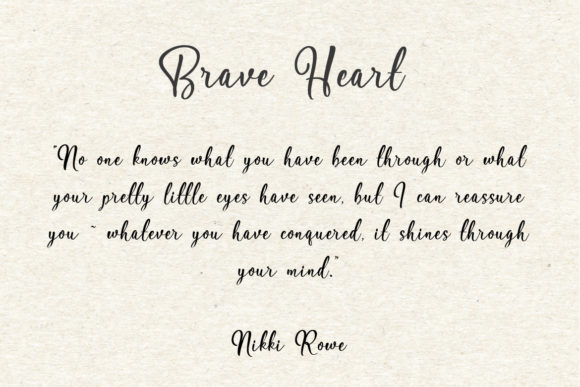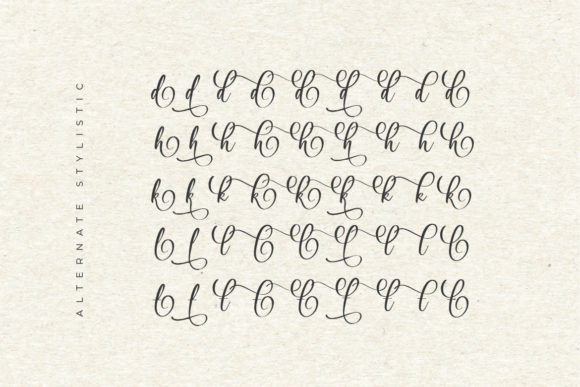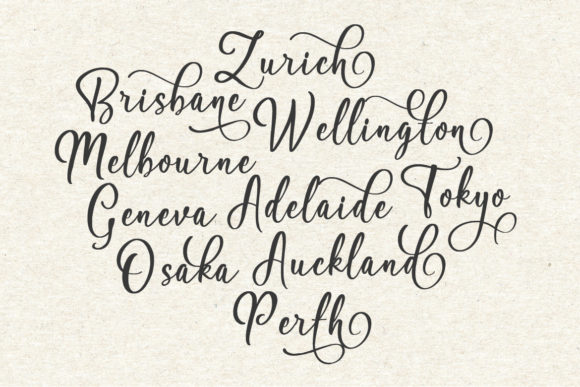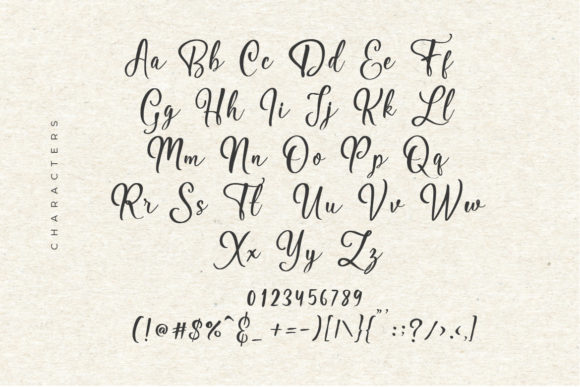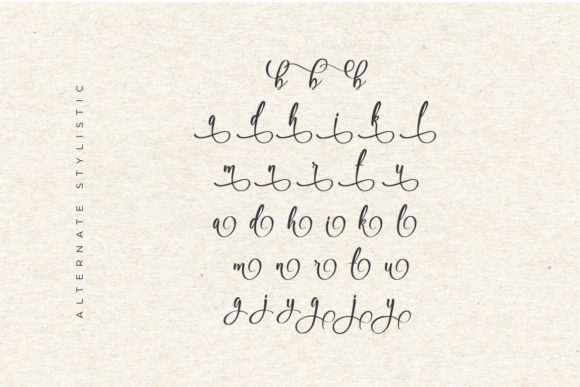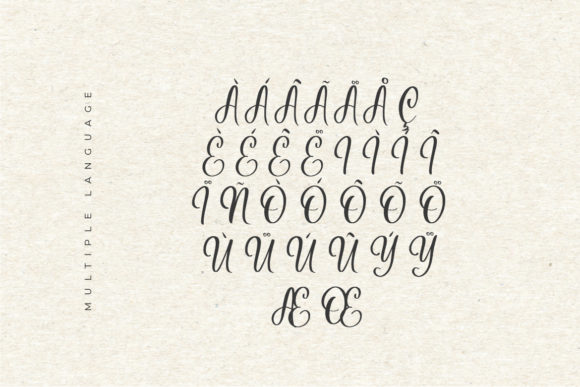
Hildegard Script Font
About Hildegard Script Font
Hildegard Script is a stunning and graceful script font that will captivate you with its ravishing style. With its elegant and flowing letterforms, Hildegard Script is the perfect choice for creating gorgeous wedding invitations, exquisite stationery art, eye-catching social media posts, and so much more. Its timeless and sophisticated design adds a touch of luxury and romance to any project. Whether you’re working on formal events or want to add a touch of elegance to your branding materials, Hildegard Script will help you achieve stunning results. Fall in love with this font and let it elevate your designs to new heights of beauty and charm.